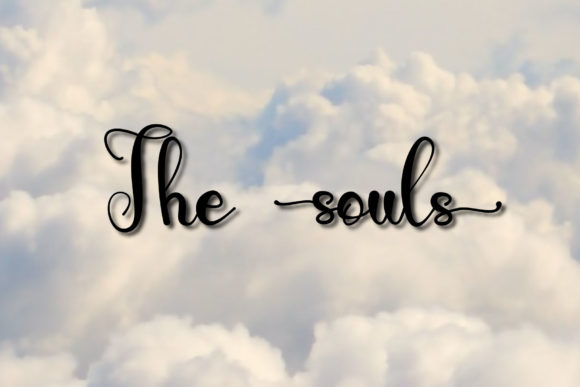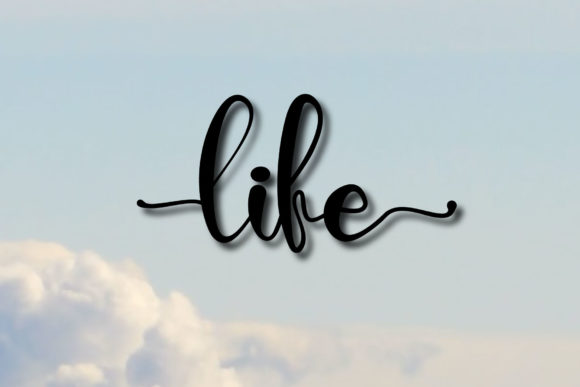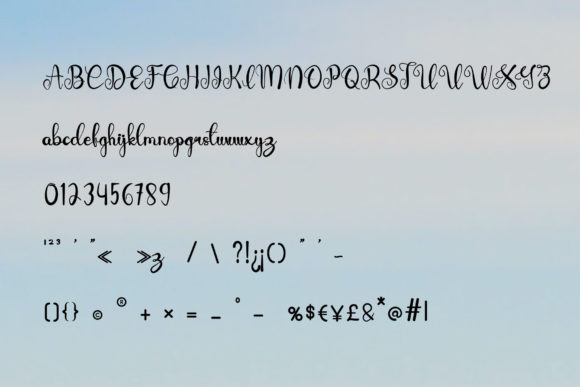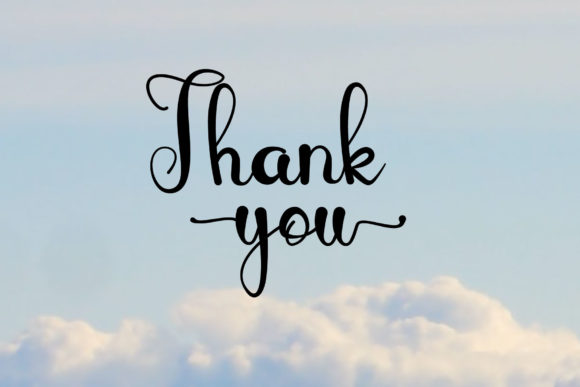
Discover the Charm of Attitude Font: Elevate Your Designs with this Enchanting Handwritten Script
Are you tired of using the same old fonts in your designs? Look no further than Attitude Font, a beautiful and versatile handwritten script that can add a touch of elegance and whimsy to any project. In this article, we’ll dive into the world of Attitude Font, exploring its features, benefits, and uses, and show you how to make the most of this enchanting font.
What is Attitude Font?
Attitude Font is a stunning handwritten script font that boasts a wide range of applications. From greeting cards to headlines, this font is perfect for designers and crafters looking to add a personal touch to their work. With its unique and enchanting style, Attitude Font is sure to capture the attention of your audience and leave a lasting impression.
Key Features of Attitude Font
- PUA Encoded: Attitude Font is PUA (Private Use Area) encoded, which means you can access all of the glyphs and swashes with ease. This feature makes it simple to customize your text and add a personal touch to your designs.
- Handwritten Style: Attitude Font has a beautiful, handwritten style that adds a touch of warmth and personality to any design.
- Versatile: This font is incredibly versatile and can be used in a wide range of applications, from digital designs to print materials.
Benefits of Using Attitude Font
So why choose Attitude Font for your next design project? Here are just a few benefits of using this enchanting font:
- Adds a Personal Touch: Attitude Font’s unique and handwritten style adds a personal touch to any design, making it perfect for projects where you want to stand out from the crowd.
- Easy to Use: With its PUA encoding, Attitude Font is easy to use and customize, even for designers who are new to script fonts.
- Highly Versatile: Whether you’re designing a greeting card, a headline, or a digital graphic, Attitude Font is a great choice.
Uses for Attitude Font
So what can you use Attitude Font for? The possibilities are endless! Here are a few ideas to get you started:
- Greeting Cards: Add a personal touch to your greeting cards with Attitude Font’s beautiful handwritten style.
- Headlines: Use Attitude Font to create eye-catching headlines that grab attention and add a touch of elegance to your designs.
- Digital Graphics: Attitude Font is perfect for digital graphics, such as social media posts, blog headers, and more.
- Print Materials: Use Attitude Font in print materials, such as brochures, flyers, and posters, to add a touch of personality and whimsy.
Tips for Using Attitude Font
Here are a few tips for using Attitude Font in your designs:
- Experiment with Swashes: Attitude Font’s PUA encoding makes it easy to access a range of swashes and glyphs. Experiment with different combinations to add a unique touch to your designs.
- Pair with Other Fonts: Attitude Font pairs well with a range of other fonts. Try pairing it with a bold sans-serif font for a striking contrast.
- Use for Emphasis: Use Attitude Font to add emphasis to key words or phrases in your designs.
Attitude Font is a beautiful and versatile handwritten script font that can add a touch of elegance and whimsy to any design. With its PUA encoding, handwritten style, and highly versatile nature, this font is perfect for designers and crafters looking to elevate their designs. Whether you’re creating greeting cards, headlines, or digital graphics, Attitude Font is a great choice. So why not give it a try and see the difference it can make in your designs?